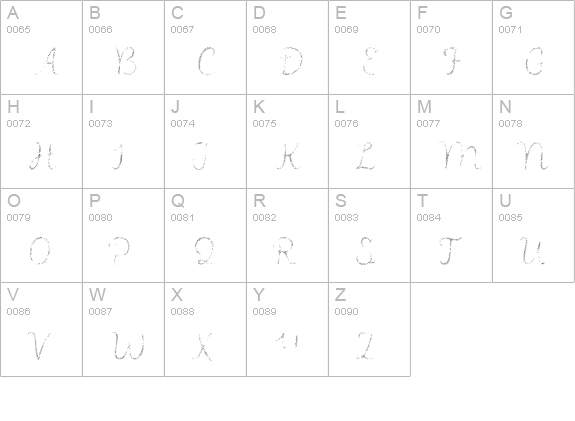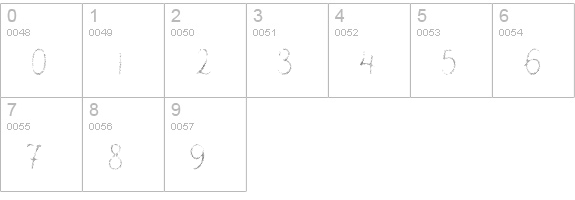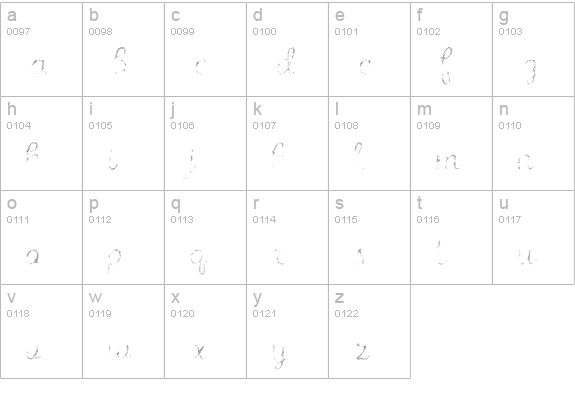
Intro Script R L Font Details
Intro Script R L is a stunning and elegant font that exudes sophistication and charm. Its intricate and flowing script style adds a touch of class to any design project. Whether you are creating wedding invitations, logos, or branding materials, this font will elevate your work to the next level. What makes Intro Script R L even more appealing is that it is available for free download at FontsMarket.com. This means you can add this exquisite font to your collection without any additional cost. Don't miss out on the opportunity to enhance your designs with this beautiful and versatile typeface. Download Intro Script R L today and let your creativity shine!